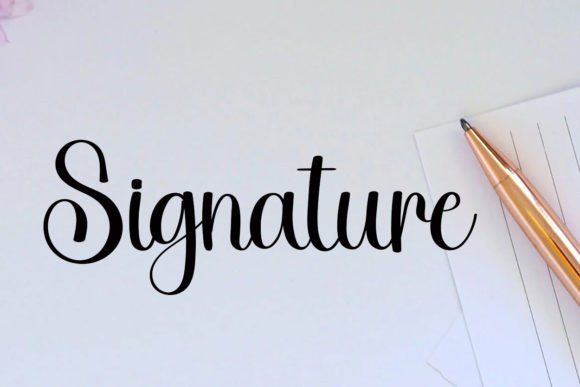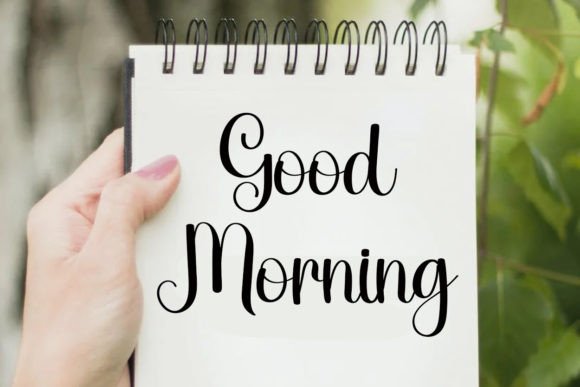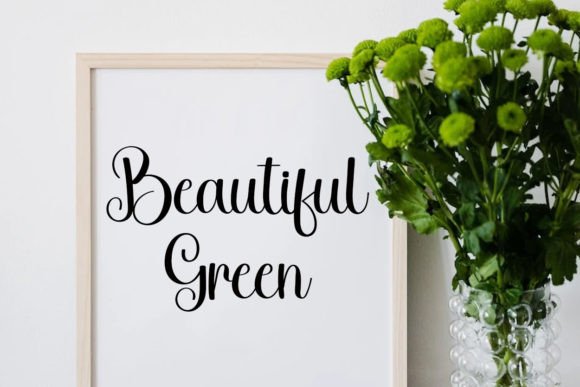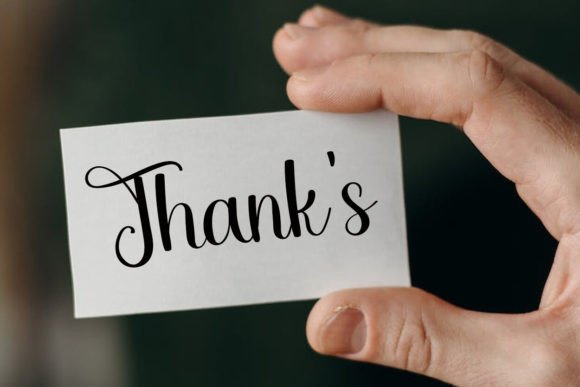
Introducing Christmas Saturday Font: The Ultimate Holiday Design Companion
Are you a designer or crafter looking for the perfect font to elevate your holiday designs? Look no further than Christmas Saturday Font, a sweet and friendly handwritten font that’s sure to become your new go-to. With its natural and unique style, Christmas Saturday Font is incredibly versatile and can be used in a wide range of designs, from festive holiday cards and decorations to branding and marketing materials.
The Perfect Blend of Whimsy and Charm
Christmas Saturday Font is a beautifully crafted handwritten font that’s infused with a sense of whimsy and charm. Its natural, effortless style makes it feel like it was written by hand, adding a personal touch to any design. Whether you’re creating holiday-themed crafts, such as gift tags, garlands, and ornaments, or designing festive marketing materials, like social media graphics and flyers, Christmas Saturday Font is the perfect choice.
One of the best things about Christmas Saturday Font is its incredible versatility. The only limit is your imagination! Use it to create:
- Festive holiday cards and invitations
- Decorative gift tags and wrapping paper
- Holiday-themed crafts, such as garlands and ornaments
- Social media graphics and holiday-themed posts
- Festive branding and marketing materials, like flyers and brochures
- And so much more!
Why Choose Christmas Saturday Font?
So, what sets Christmas Saturday Font apart from other fonts? Here are just a few reasons why designers and crafters love this font:
- Unique and eye-catching: Christmas Saturday Font has a one-of-a-kind style that’s sure to grab attention and make your designs stand out.
- Easy to read: Despite its whimsical style, Christmas Saturday Font is incredibly legible, making it perfect for use in a wide range of designs.
- Highly versatile: Use Christmas Saturday Font in digital designs, print materials, or even hand-lettered projects.
- Perfect for holiday designs: This font was made for holiday designs, with a festive and fun vibe that’s perfect for the season.
Tips for Using Christmas Saturday Font
To get the most out of Christmas Saturday Font, here are a few tips to keep in mind:
- Experiment with sizes and colors: Play around with different font sizes and colors to add visual interest to your designs.
- Mix and match with other fonts: Combine Christmas Saturday Font with other fonts to create a unique and eye-catching look.
- Use it in combination with images: Pair Christmas Saturday Font with festive images, like holly or snowflakes, to create a cohesive and engaging design.
Get Creative with Christmas Saturday Font
In conclusion, Christmas Saturday Font is a sweet and friendly handwritten font that’s perfect for designers and crafters looking to add a touch of whimsy and charm to their holiday designs. With its natural and unique style, endless design possibilities, and ease of use, this font is sure to become a staple in your design toolkit. So go ahead, get creative, and make this holiday season one to remember with Christmas Saturday Font!